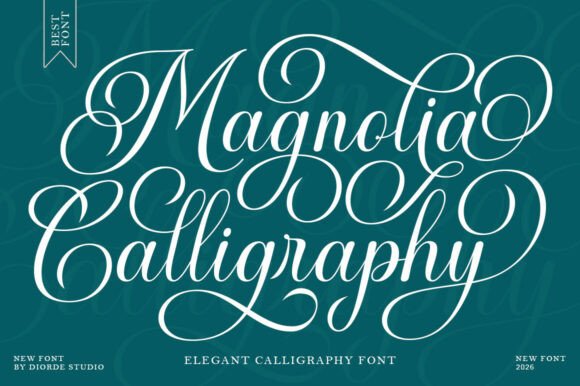
Magnolia Calligraphy: A Premium Script Font for Makers
The soft glow of my desk lamp illuminates the small circle of wax paper where I am testing a new candle label design. For weeks, I have been searching for the perfect typeface to elevate my handmade soy candles from simple goods to boutique treasures. I need something that whispers elegance but still feels approachable and warm. That is when I discovered Magnolia Calligraphy. As I typed the words "Lavender & Vanilla" into my design software, the letters flowed onto the screen with a grace that immediately captured the mood I was aiming for. It was not just another script font; it felt like a natural extension of my brand identity.
Bringing Classic Charm to Modern Handmade Goods
Magnolia Calligraphy is an elegant script font that blends the charm of classic decorative copperplate calligraphy with a modern, slightly bold touch. Designed with meticulous detail, this font exudes a sense of timeless sophistication without feeling outdated or overly ornate. In the world of handmade crafts and digital downloads, the right Fonts can make or break a product listing. When I first applied Magnolia Calligraphy to a mockup for a wedding invitation suite, the difference in perceived quality was immediate. The strokes have a beautiful variation in thickness, mimicking the natural flow of a high-quality dip pen, yet they possess enough weight to remain legible even when printed on textured cardstock.
This specific visual personality makes it an ideal choice for creators who want their work to feel premium. Whether you are designing packaging for artisanal soaps, creating printable wall art for a nursery, or crafting custom tags for a holiday gift set, the font carries an inherent emotional appeal. It suggests care, attention to detail, and a personal touch. For those of us selling on platforms like Etsy or running independent boutiques, that subtle signal of quality is crucial for building trust with potential customers before they even unbox their purchase.
From Stickers to Tote Bags: Versatile Applications
One of the most exciting aspects of working with Magnolia Calligraphy is its versatility across different mediums. I recently spent an afternoon preparing a batch of vinyl stickers for my planner community. Using a Cricut machine, I cut out names and short affirmations using this script. The result was stunning; the curves were smooth, and the details held up perfectly during the weeding process. Because the font includes a slightly bolder touch compared to traditional delicate scripts, it cuts cleanly without leaving fragile, tiny pieces of vinyl behind.
Beyond stickers, I have found this typeface equally effective for larger format projects. When designing a farmhouse-style wooden sign for a local shop's grand opening, I paired the main title in Magnolia Calligraphy with a clean sans serif subtext. The contrast created a balanced composition that drew the eye immediately. Similarly, for a line of custom tote bags, the font worked beautifully as a large, centered statement piece. Its readability remains strong even when scaled up, ensuring that the message is clear from a distance. This adaptability makes it a powerful asset in your collection of design assets, suitable for everything from small product labels to large-scale signage.
Mastering Readability and Design Pairing
While Magnolia Calligraphy is undeniably beautiful, understanding how to use it effectively is key to professional results. Like many high-end script fonts, it shines brightest when used for short phrases, names, titles, and decorative wording. It is best categorized as a display font rather than a body text solution. Attempting to write long paragraphs in this style can quickly become difficult to read and visually overwhelming. Instead, reserve it for the headlines of your greeting cards, the branding on your coffee mugs, or the featured text on your digital templates.
To achieve a polished look, consider how you pair this script with other typefaces. The most successful combinations I have found involve contrasting styles. Pairing Magnolia Calligraphy with a simple sans serif font creates a modern, clean aesthetic that lets the script stand out. Alternatively, a classic serif font can enhance the vintage, romantic feel of the design. Avoid pairing it with another complex script or handwritten font, as this often leads to visual clutter. Good font pairing ensures that your hierarchy is clear and that the viewer knows exactly where to focus their attention.
When using this font for cutting machines like Silhouette or Cricut, keep the scale in mind. While the boldness helps, extremely small sizes on tiny stickers might lose some of the intricate swashes and ligatures. Always do a test print or a test cut on scrap material before committing to your final stock. This simple step saves time and materials, ensuring that every letter retains its intended character.
For any serious maker or seller, understanding the technical specifications and licensing of your tools is essential. Before integrating Magnolia Calligraphy into your business, take a moment to review the included file formats, such as OTF or TTF, to ensure compatibility with your preferred design software. Check for alternate characters, ligatures, and swashes that can add unique flair to your designs. These extra glyphs allow you to customize the look of your text, preventing two products from looking identical and adding a layer of exclusivity to your brand.